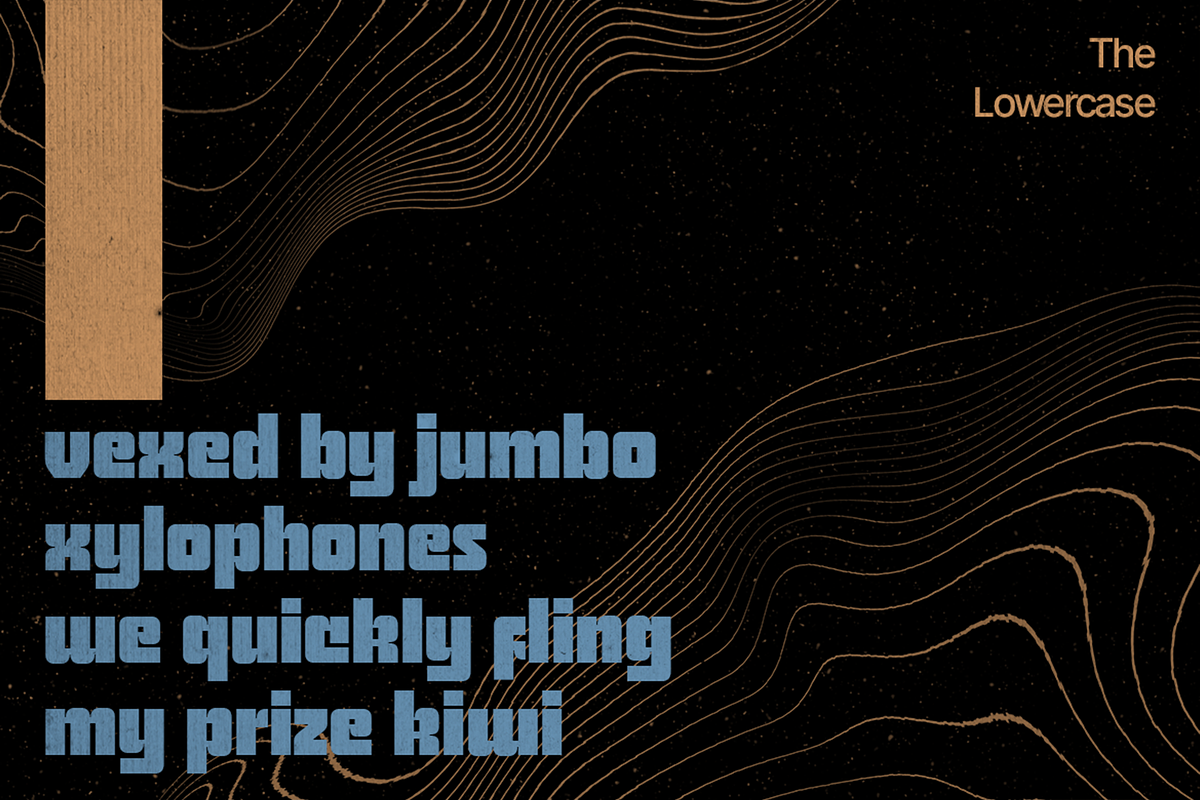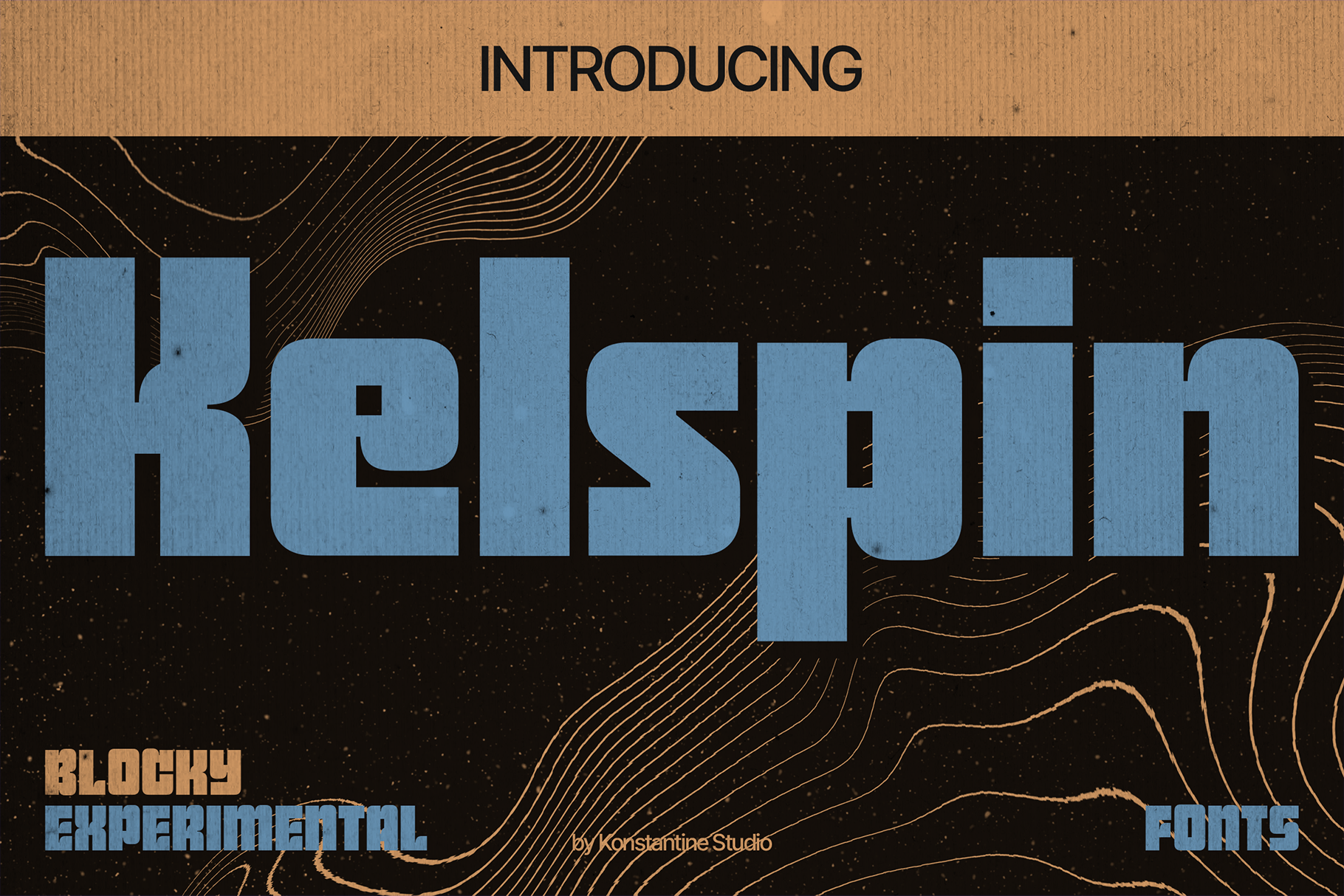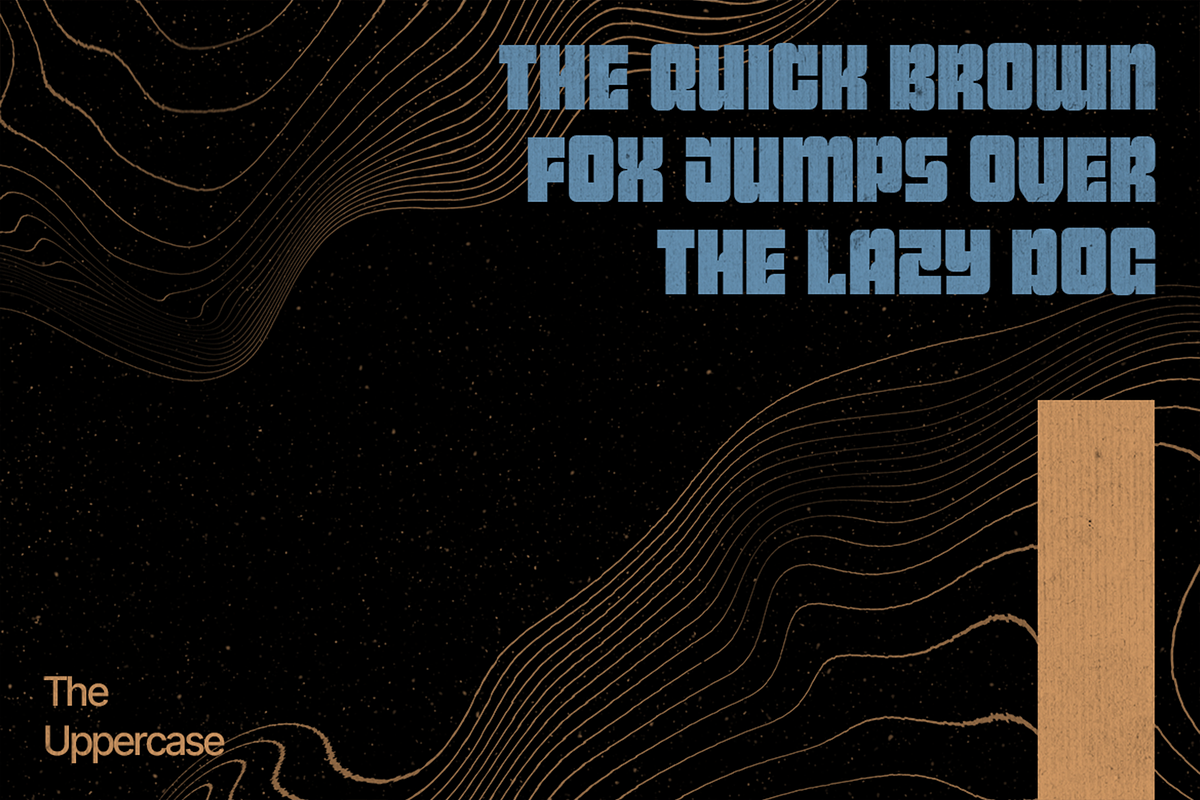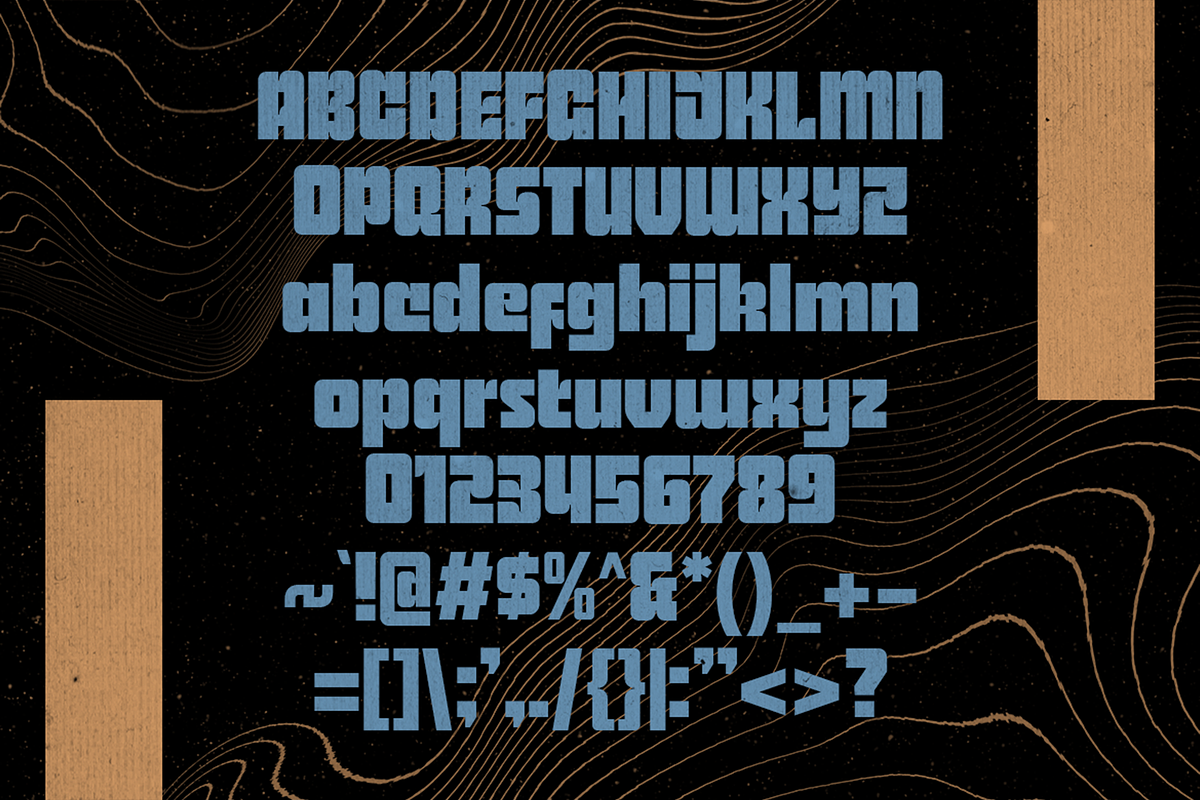
Kelspin - Blocky Experimental Fonts
Kelspin — Break the Grid. Own the Block.
Say goodbye to safe. Say hello to Kelspin — a blocky, bold, and brutal experimental font that flips the rulebook and writes its own.
Inspired by the raw structure of fundamental type forms, Kelspin is not just a font — it’s a design statement. Each letter punches with presence. Each shape disrupts expectations. It’s the perfect rebellion for designers who are tired of playing it safe.
- Want your poster to dominate a wall?
- Want your branding to be instantly unforgettable?
- Want a logo that feels fearless and unshakable?
Kelspin doesn’t whisper. It shouts with purpose. Built for brutalism, experimental layouts, techno-futurism, and bold aesthetics, this is the font that dares where others don’t.
So why use Kelspin?
Because blending in is boring. Because your design deserves impact. Because the future favors the bold.